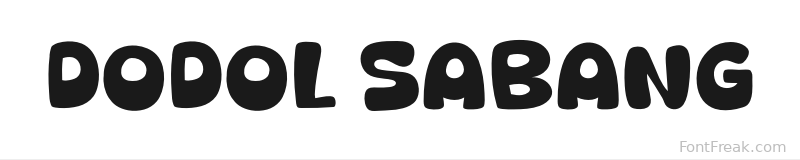
Dodol Sabang
The Dodol Sabang font, created by Syaf Rizal, is a captivating display typeface that showcases a unique blend of playful design and bold character. This font falls under the decorative category, characterized by its rounded, thick strokes and whimsical forms that convey a sense of joy and creativity. The visual appeal is enhanced by a lack of sharp edges, giving it a friendly and approachable feel. The consistent stroke weight and moderate spacing between characters make it suitable for various applications where readability and visual impact are essential.
Dodol Sabang is particularly well-suited for a range of creative projects. It shines in wedding invitations, where its charming aesthetic can add a personal touch to special occasions. Additionally, it works wonderfully for restaurant menus, providing a fun yet inviting look that can enhance the dining experience. Movie posters can also benefit from the font’s eye-catching qualities, making titles stand out in a crowded visual landscape. Furthermore, it is an excellent choice for children's books and educational materials, as its playful nature can engage young readers effectively.
The target audience for the Dodol Sabang font includes graphic designers looking for a distinctive typeface to elevate their projects, small business owners seeking to establish a unique brand identity, and content creators aiming to add a whimsical flair to their visual content.
What sets the Dodol Sabang font apart is its ability to balance fun and functionality, making it a versatile choice for various design needs. With its free license, the Dodol Sabang font free download offers an exceptional opportunity for creatives to explore this unique typeface in their work, ensuring that every project can carry a touch of joy and personality.